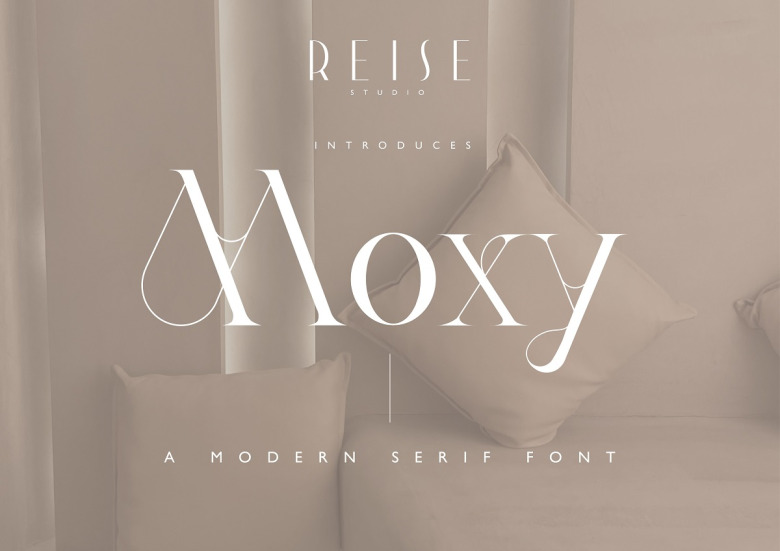
Moxy Font
Moxy, a stylish serif font with one-of-a-kind glyphs inspired by nature. Perfect for branding and logo design, wedding invitations and magazine titles, and much else.
Moxy Serif Font